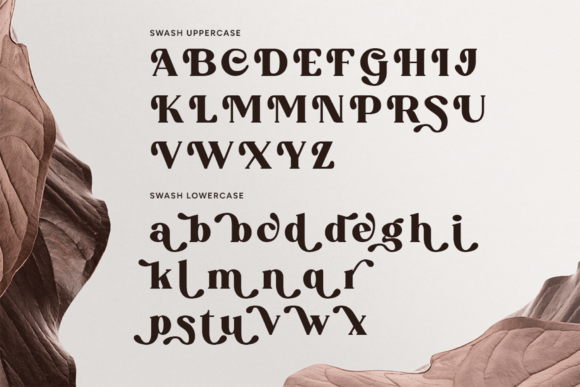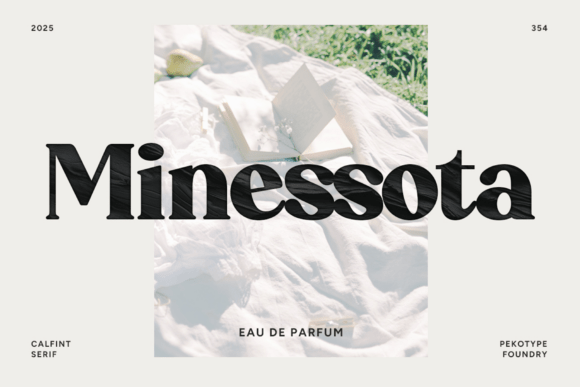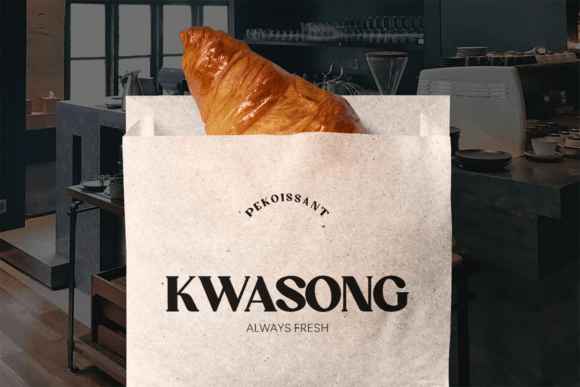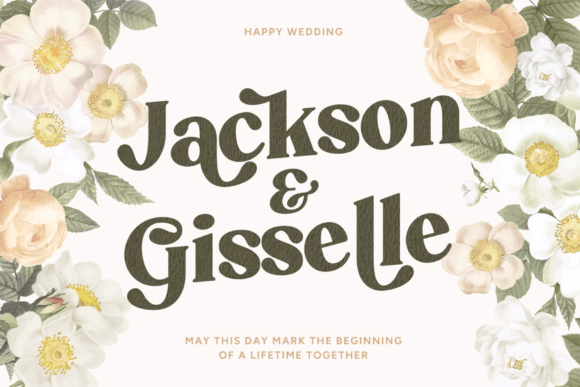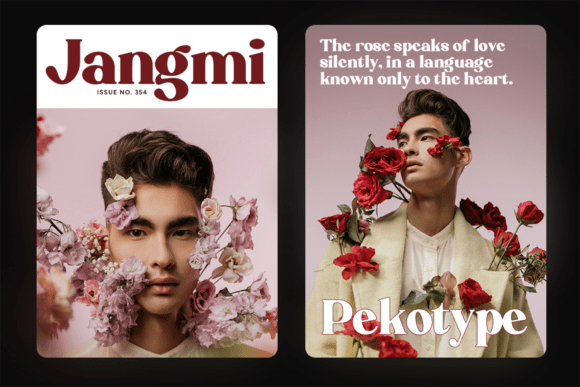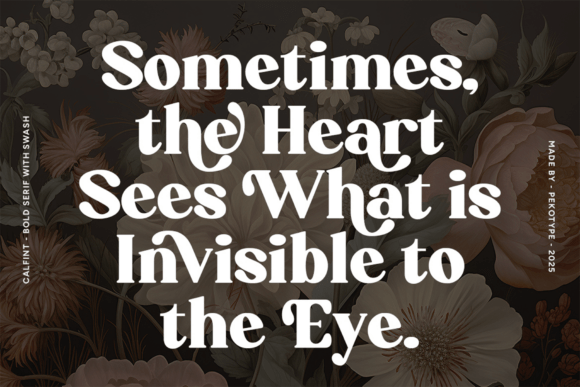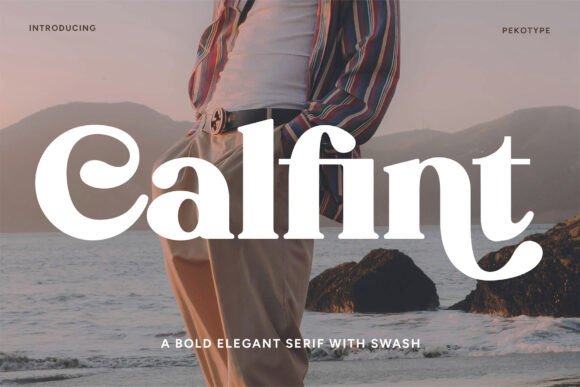
Introducing CALFINT: The Bold Serif with a Retro Twist
Have you ever been in the middle of a design project, and suddenly, you’re stuck on finding the perfect font? I recall a recent experience where I was working on a branding project for a vintage-inspired clothing line. My client wanted a font that exuded strength, character, and a touch of nostalgia. After hours of scouring through font libraries, I stumbled upon CALFINT – a bold serif display font that instantly caught my attention.
With its thick, impactful letterforms and elegant swash features, CALFINT seemed like the perfect fit for my project. But what really drew me in was its unique blend of retro charm and modern appeal. In this article, I’ll share my experience with CALFINT, its features, and how to make the most of this versatile font in your designs.
An Honest Review of CALFINT
What I Love About CALFINT ✨
- 💪 **Bold and Impactful**: CALFINT’s thick letterforms make it perfect for headlines, logos, and display designs that demand attention.
- 🕰️ **Retro-Inspired Aesthetic**: The font’s vintage charm adds character to any design, while maintaining a modern appeal.
- 🎨 **Elegant Swash Features**: CALFINT’s swashes add a touch of sophistication and elegance to your designs.
- ✅ **High Readability**: Despite its bold nature, CALFINT remains highly readable, even at smaller sizes.
While CALFINT is an excellent font, there are a few things to keep in mind:
- 🤔 **Limited Use in Body Text**: Due to its bold nature, CALFINT is best suited for headlines and display text. It may not be the best choice for body text or lengthy paragraphs.
- ⚠️ **Swash Features May Not Always Display**: Depending on the platform or software used, the swash features may not always display correctly. Be sure to test the font in your design software before finalizing your project.
The Story Behind CALFINT
CALFINT was designed with the goal of creating a bold, eye-catching font that would add a touch of retro charm to any design. Inspired by vintage typography and modern design trends, CALFINT’s creator aimed to craft a font that would be both stylish and versatile. Whether you’re designing a logo, branding materials, or social media graphics, CALFINT is the perfect choice.
Q: What is CALFINT, and what is it used for?
CALFINT is a bold serif display font designed for headlines, logos, branding, and display designs. Its retro-inspired aesthetic and elegant swash features make it perfect for adding a touch of character to any design.
Q: Is CALFINT suitable for body text?
While CALFINT is highly readable, its bold nature makes it best suited for headlines and display text. For body text or lengthy paragraphs, a lighter font may be more suitable.